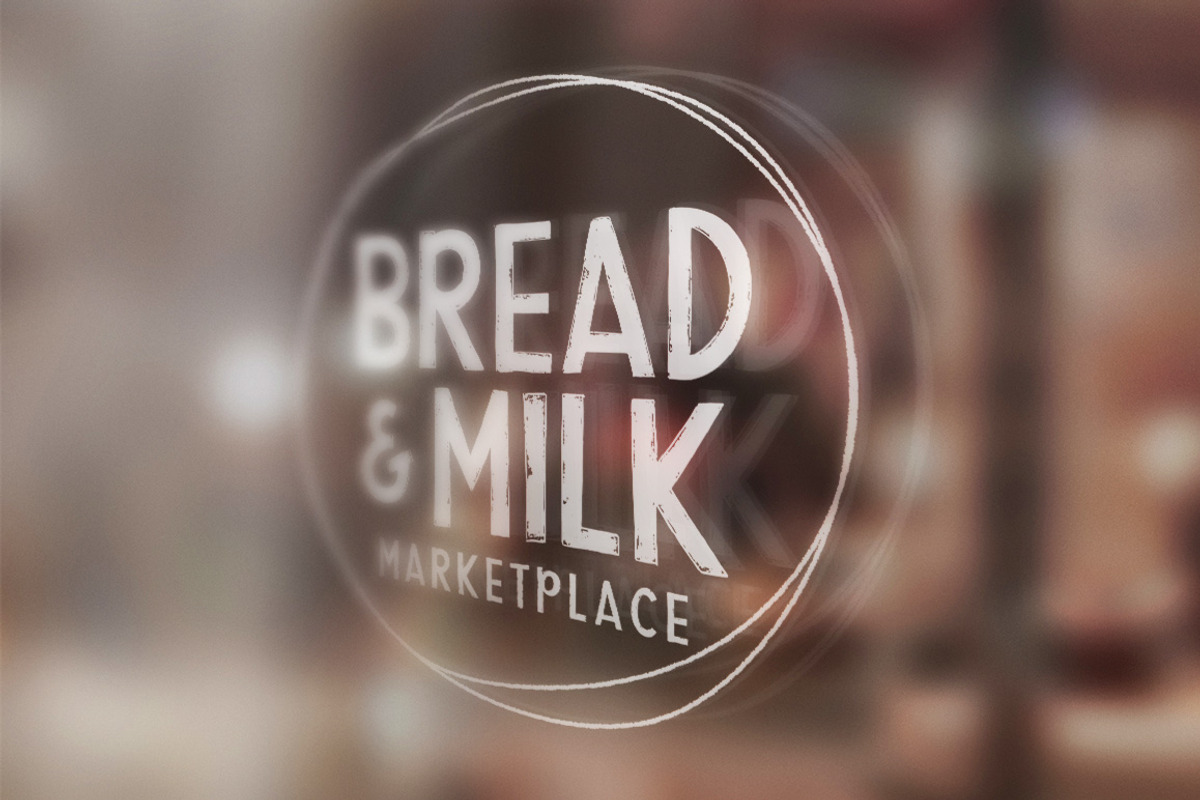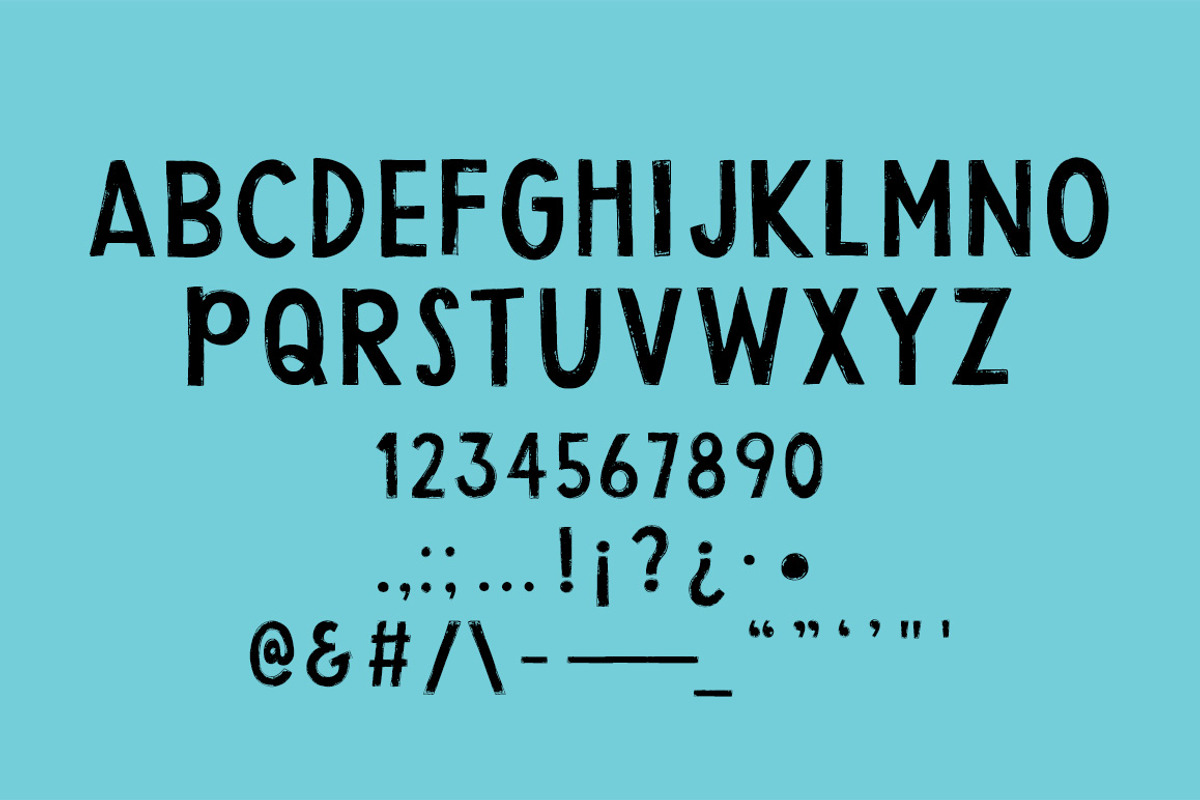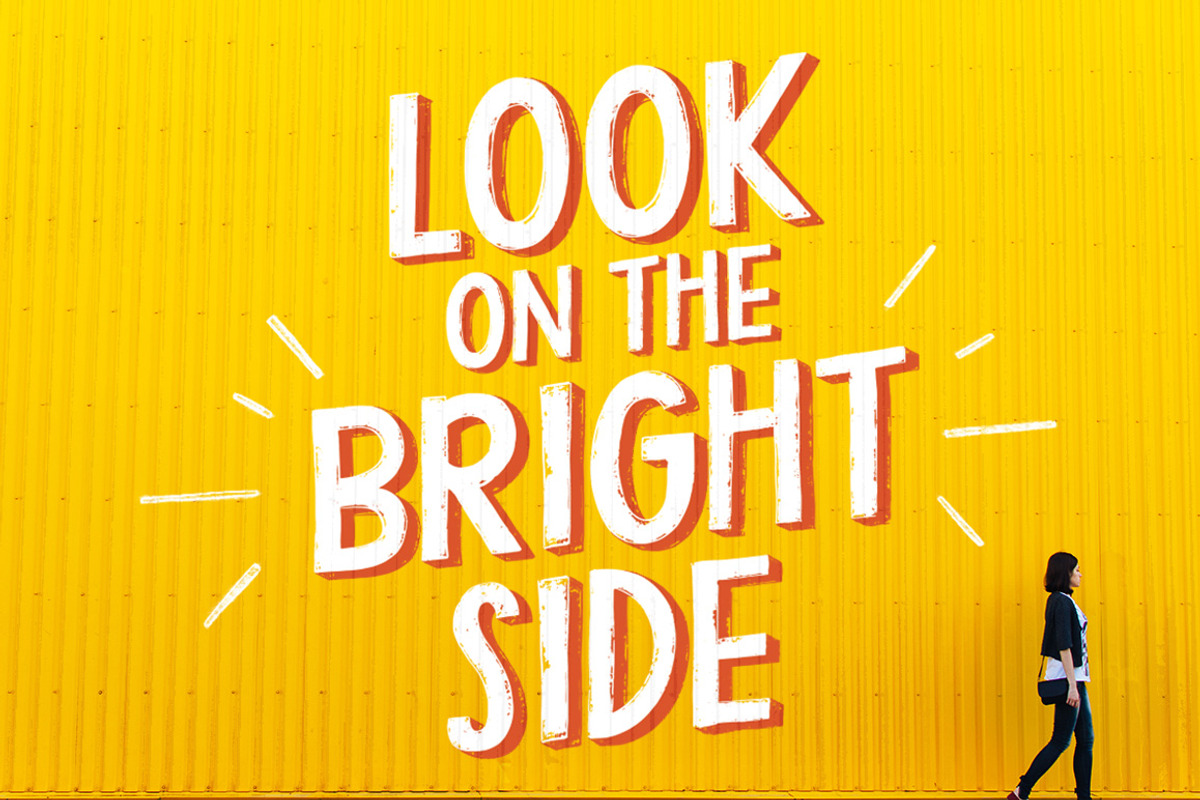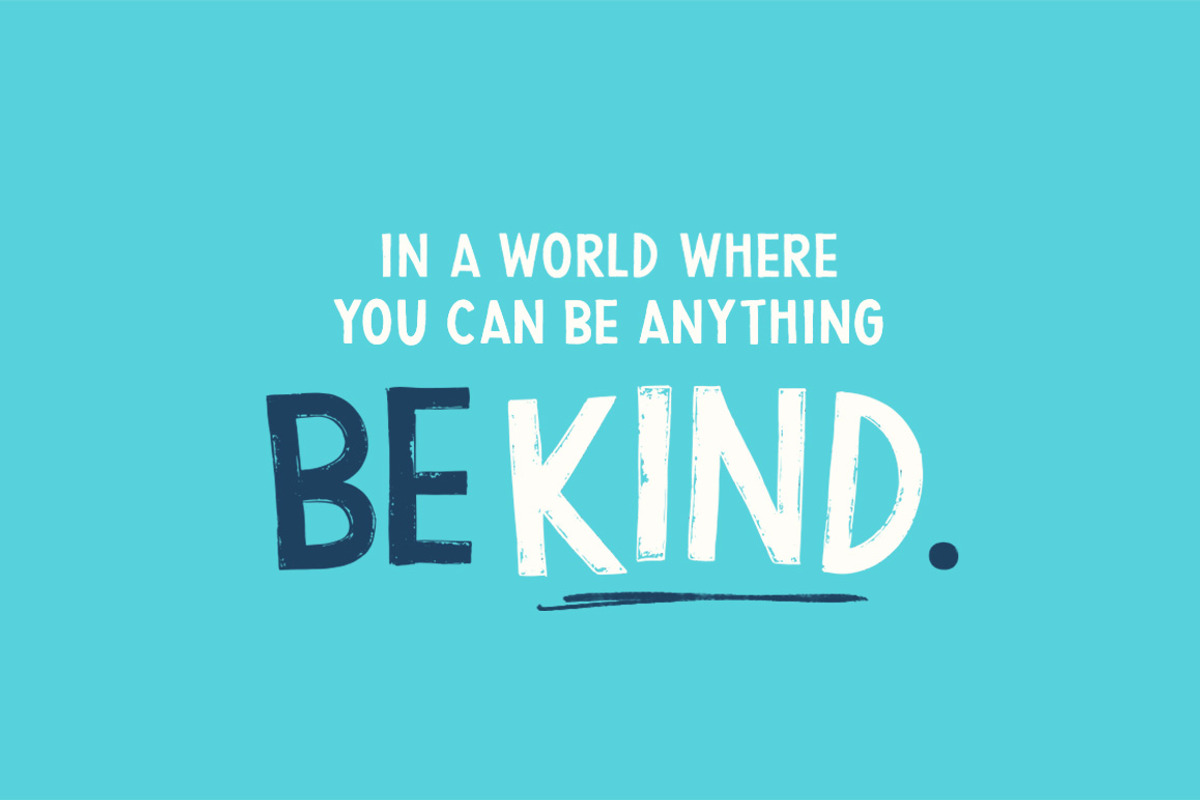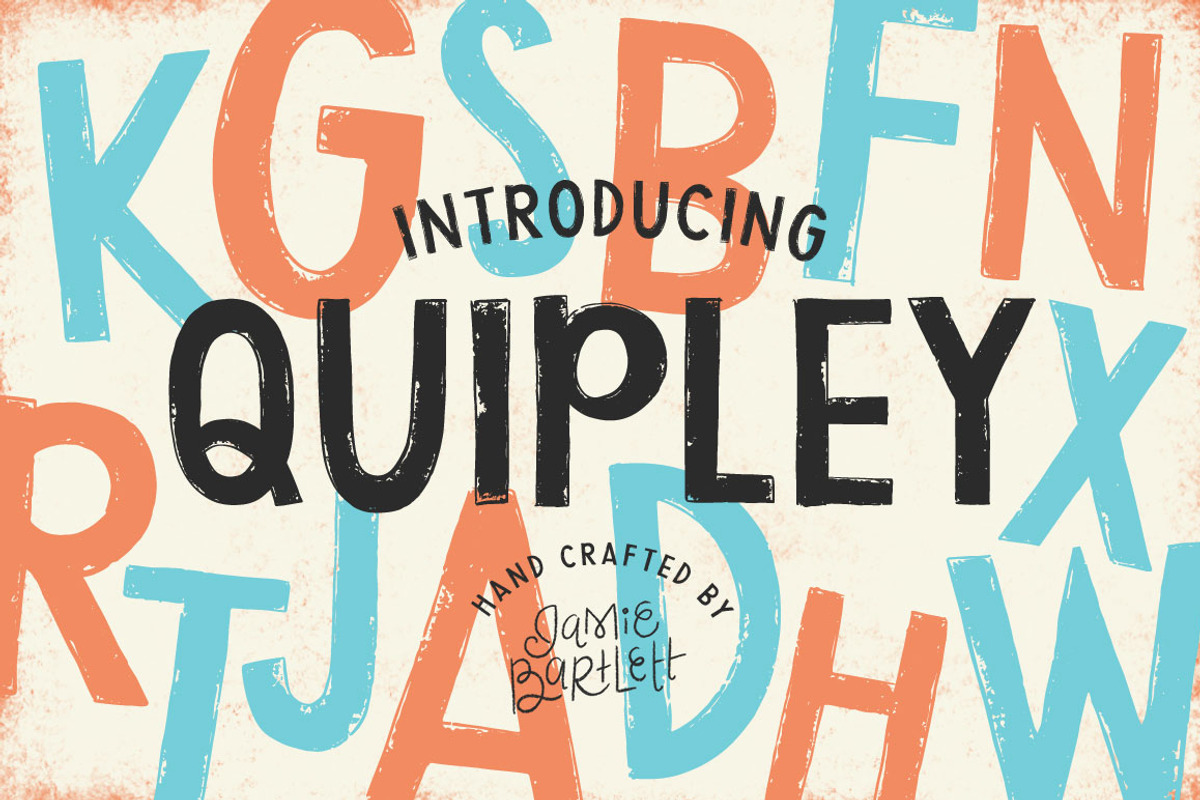
Quipley Font
Quipley Font by Jamie Bartlett is a font selected for branding, posters, packaging, typography.
- Quipley includes: Uppercase letters Numbers Select special characters and punctuation (see photo for all glyphs listed) Show More
- Quipley is an uppercase hand drawn OTF font crafted with just the right amount of texture.
Quipley Font by Jamie Bartlett fits naturally into Branding, posters, packaging, typography.